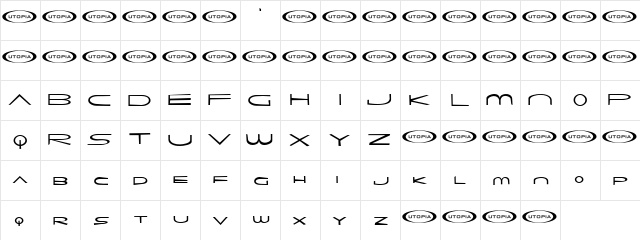
The Monkies Ate My Soul Regular
Design Context for The Monkies Ate My Soul Typeface
The Monkies Ate My Soul offers clean, dependable letterforms without strong stylistic allegiance, making it a practical choice for designers who need flexibility.